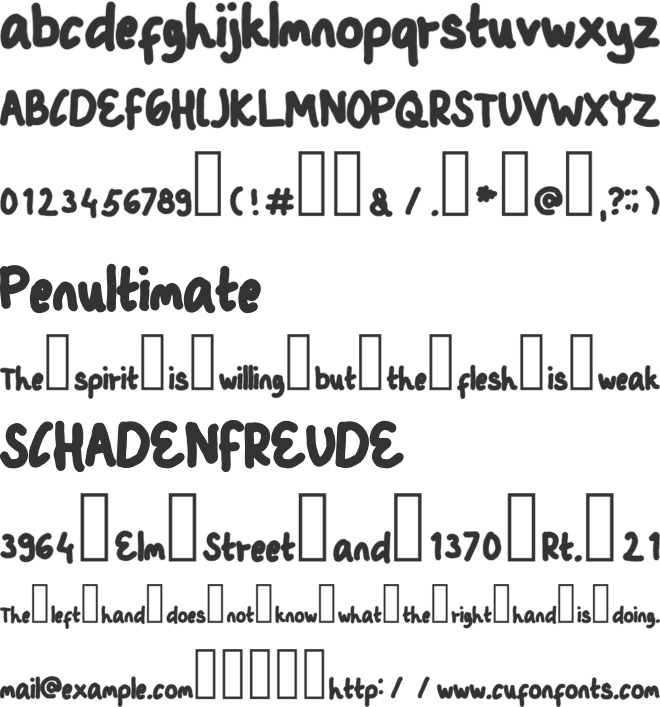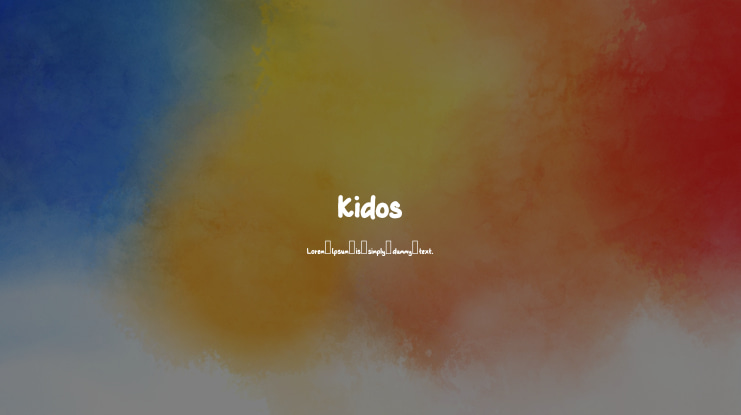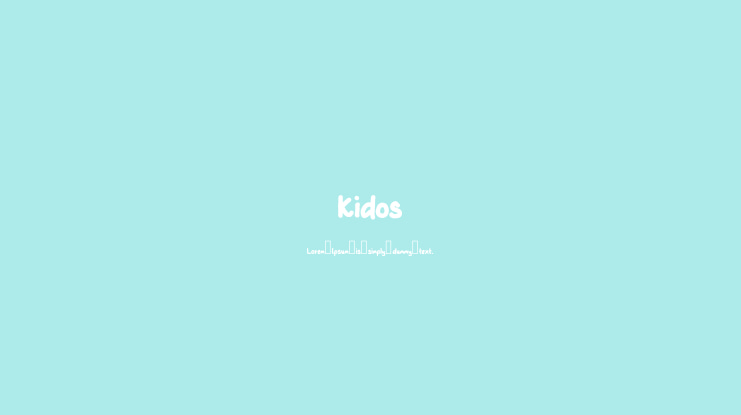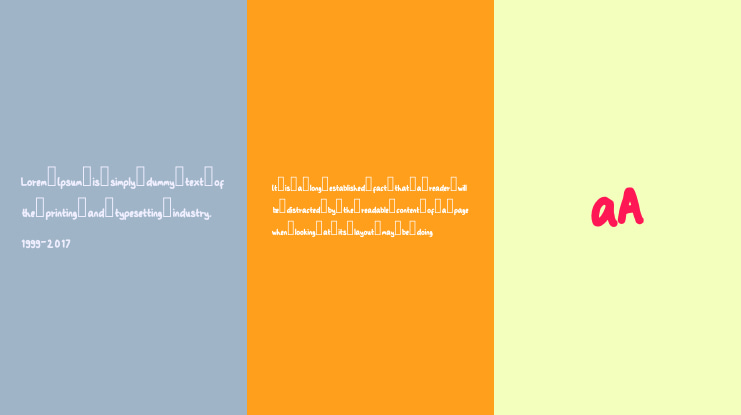
Kidos Font
Kidos is a bold and fun script font. It embodies playfulness and authenticity and is the perfect choice for any children activity or school project. Add this chunky lettered font to your designs and notice how it makes them come alive!